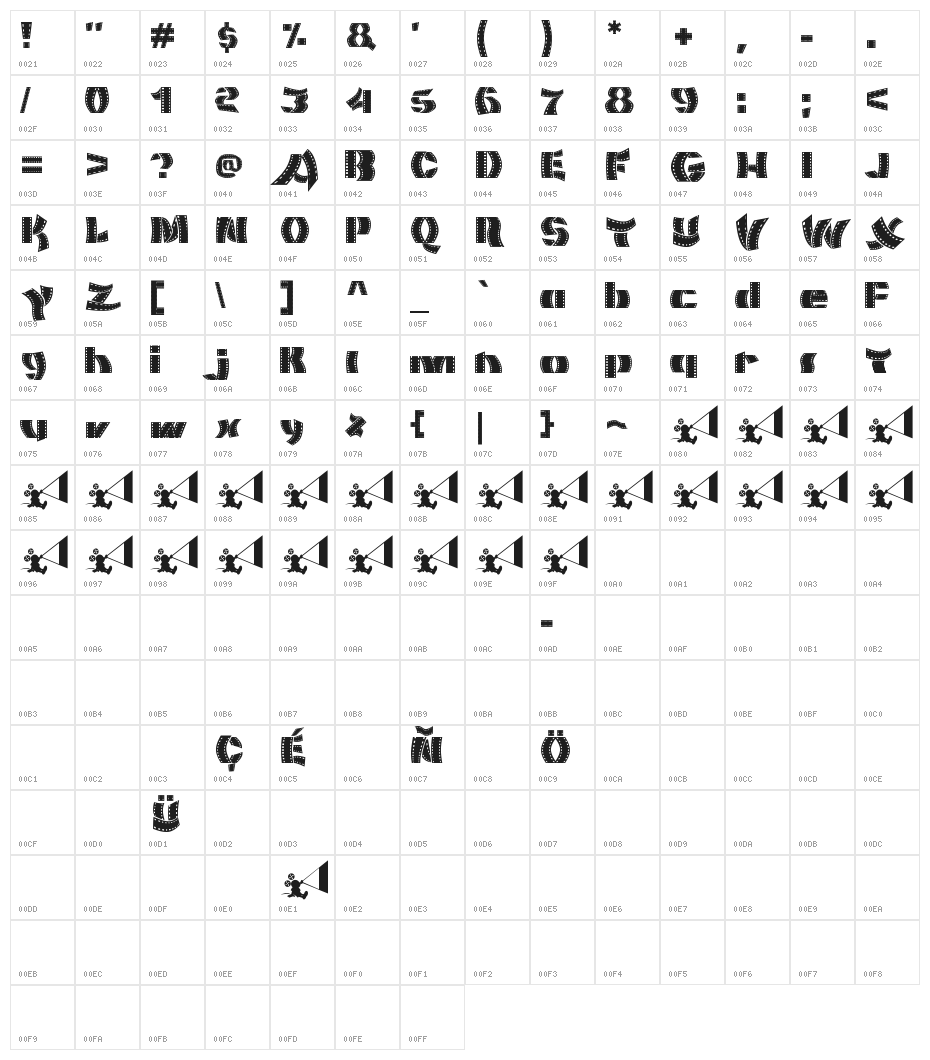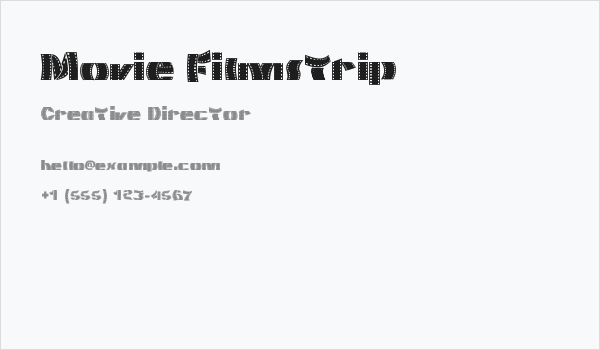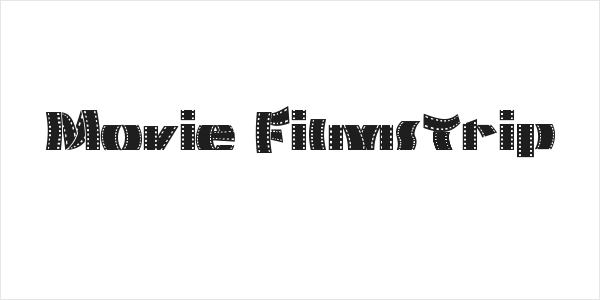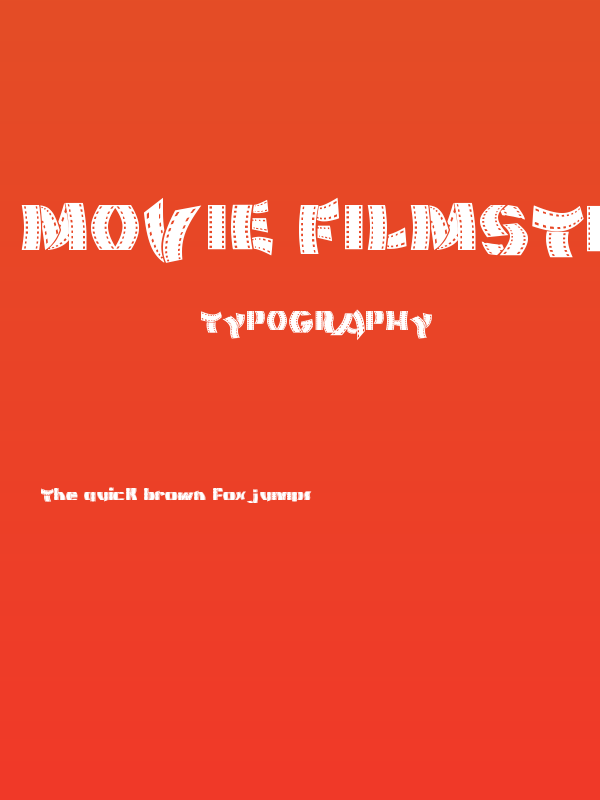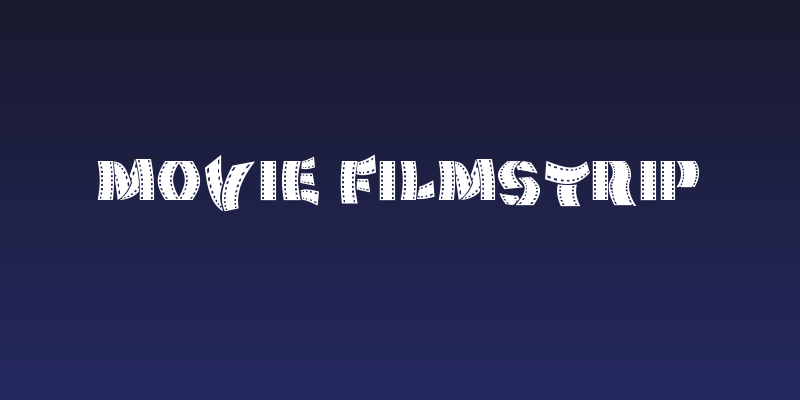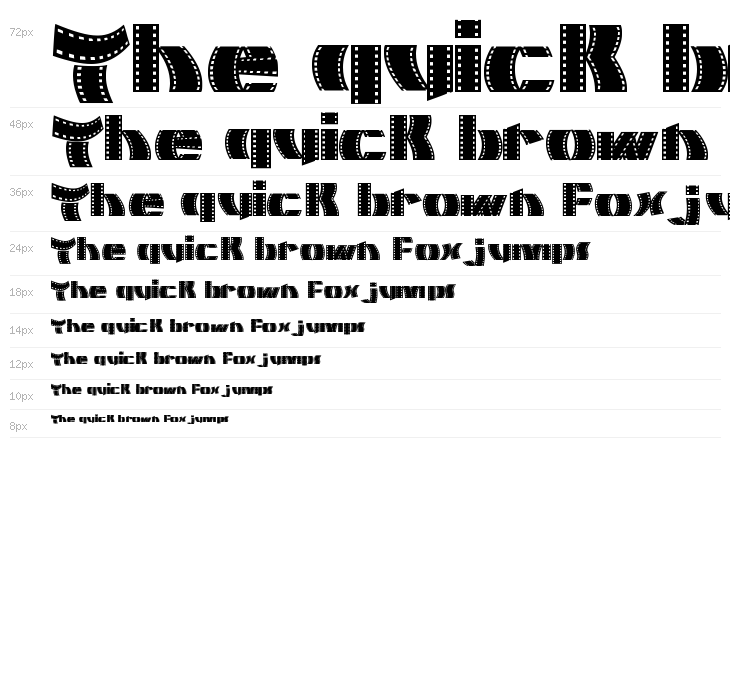
Movie Filmstrip Font
Movie Filmstrip Description
This font features a unique design that mimics the appearance of a filmstrip, with each character resembling a segment of a movie reel. The letters are bold and decorative, with a playful and cinematic style. The design includes small perforations along the edges, enhancing the filmstrip effect. This font is perfect for projects related to film, cinema, or entertainment, offering a nostalgic and creative touch. Its distinctive style makes it ideal for eye-catching headlines or themed graphics.
Proposed ProjectsIdeal for movie posters, film festival branding, entertainment event flyers, or any project requiring a cinematic flair.